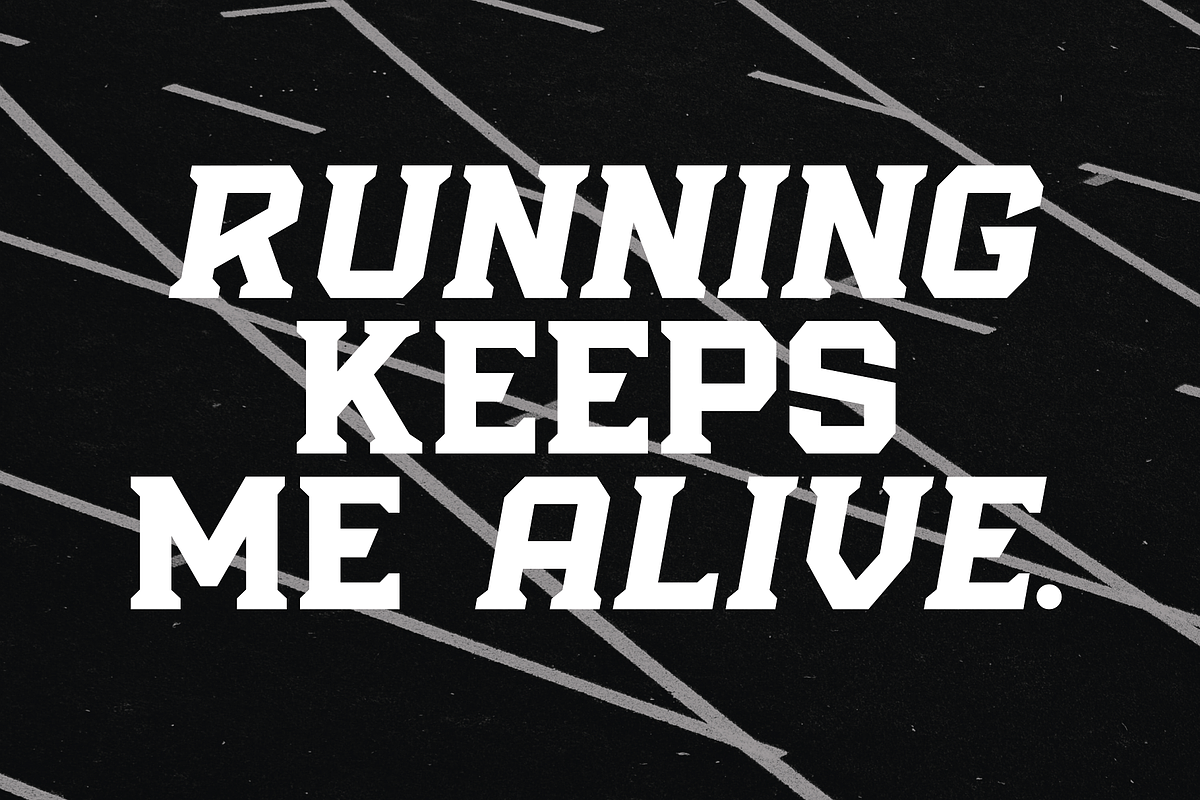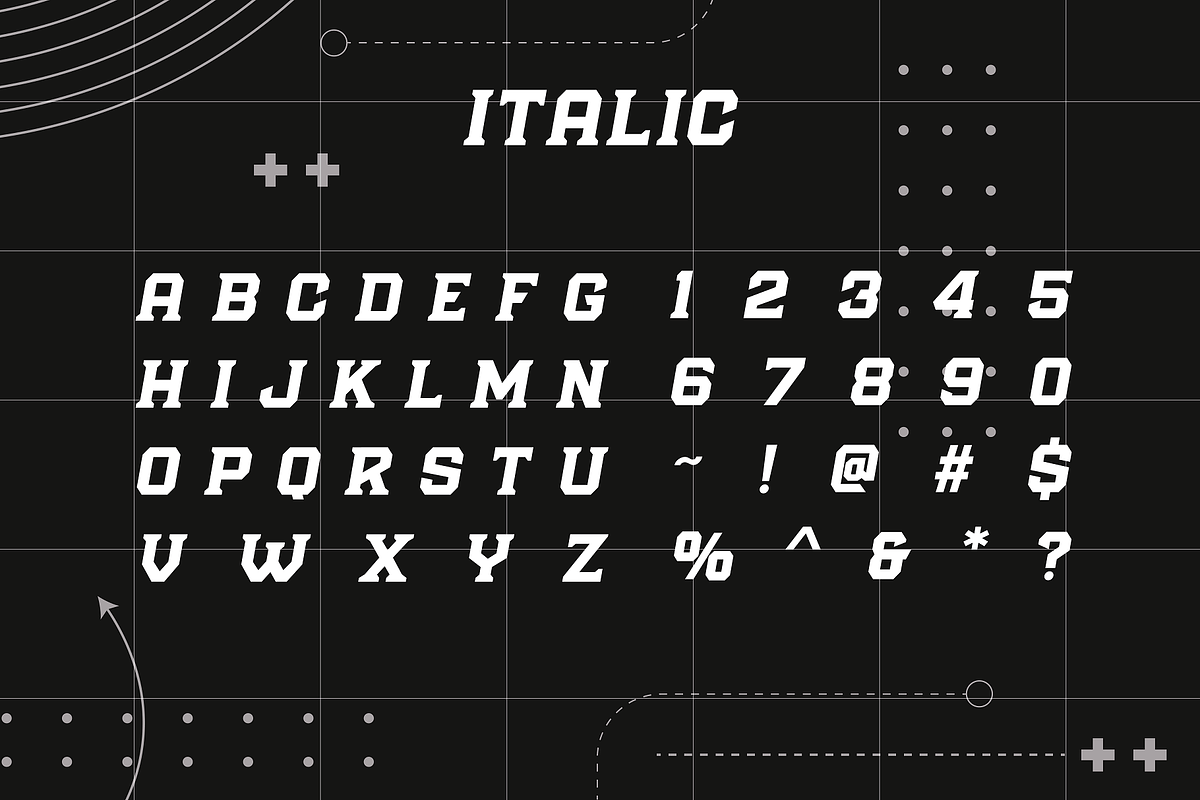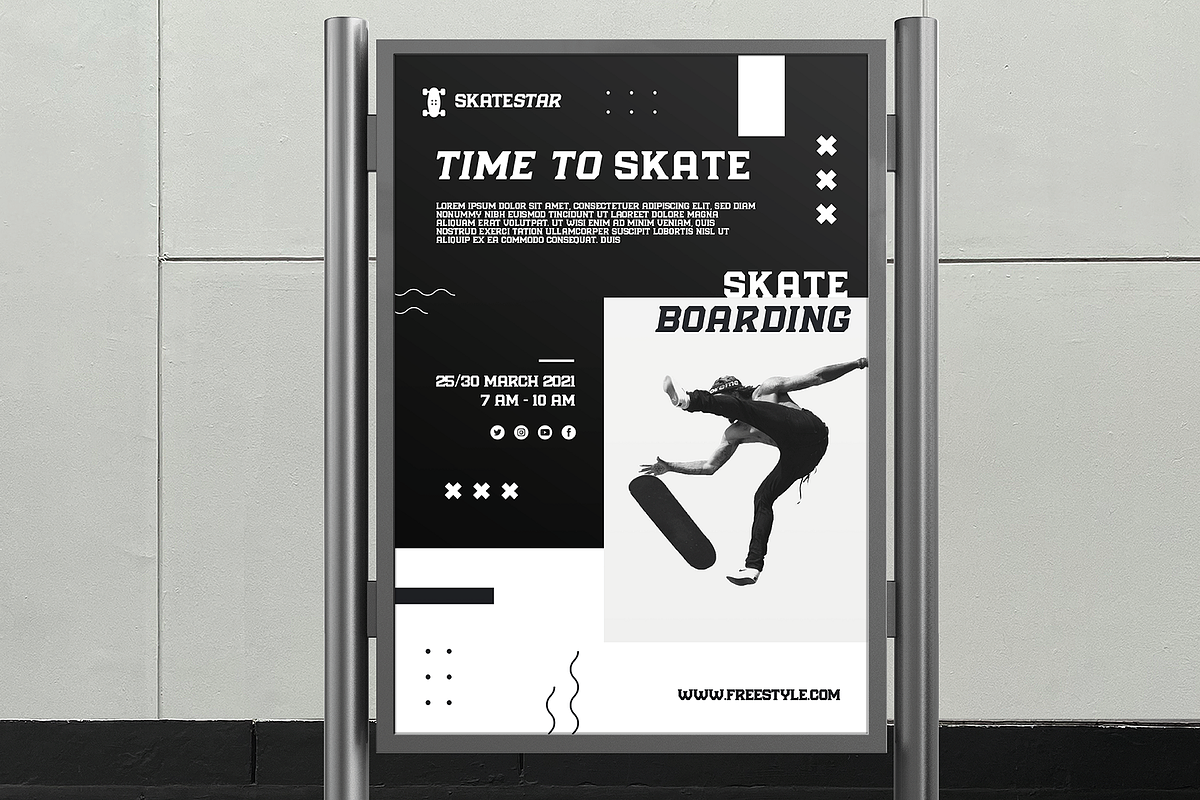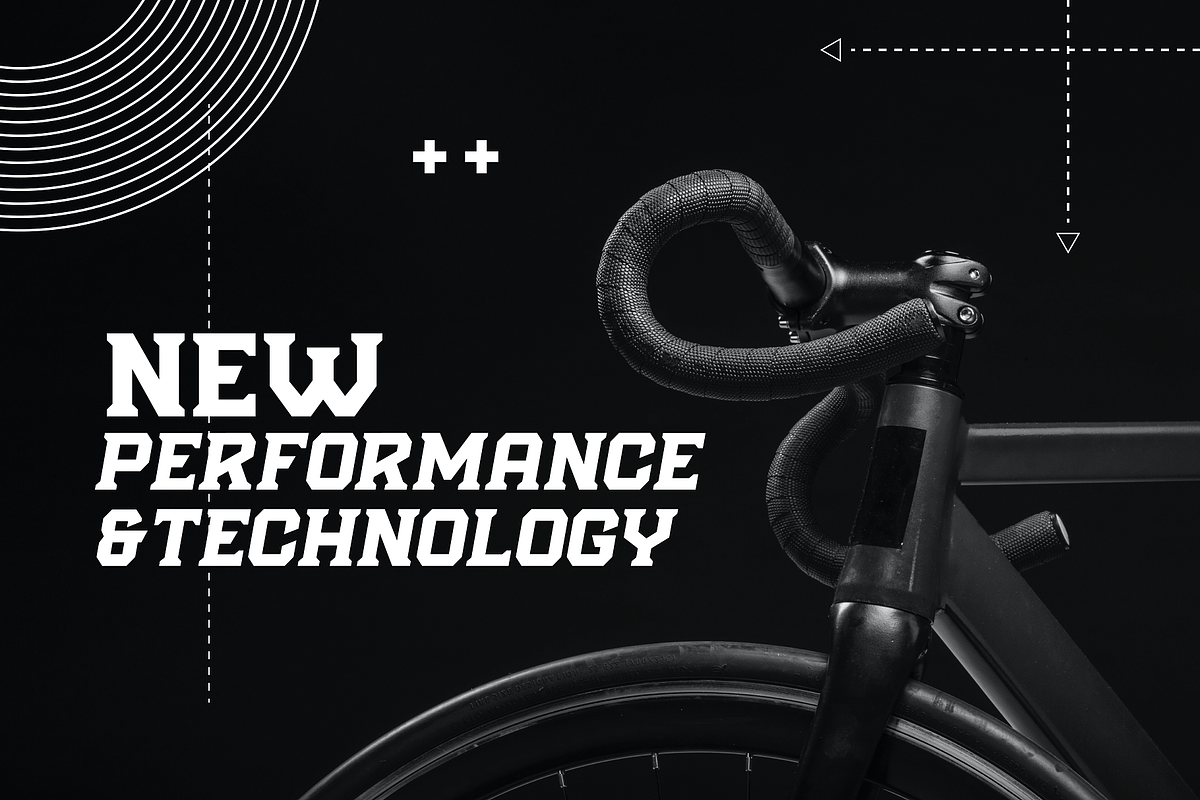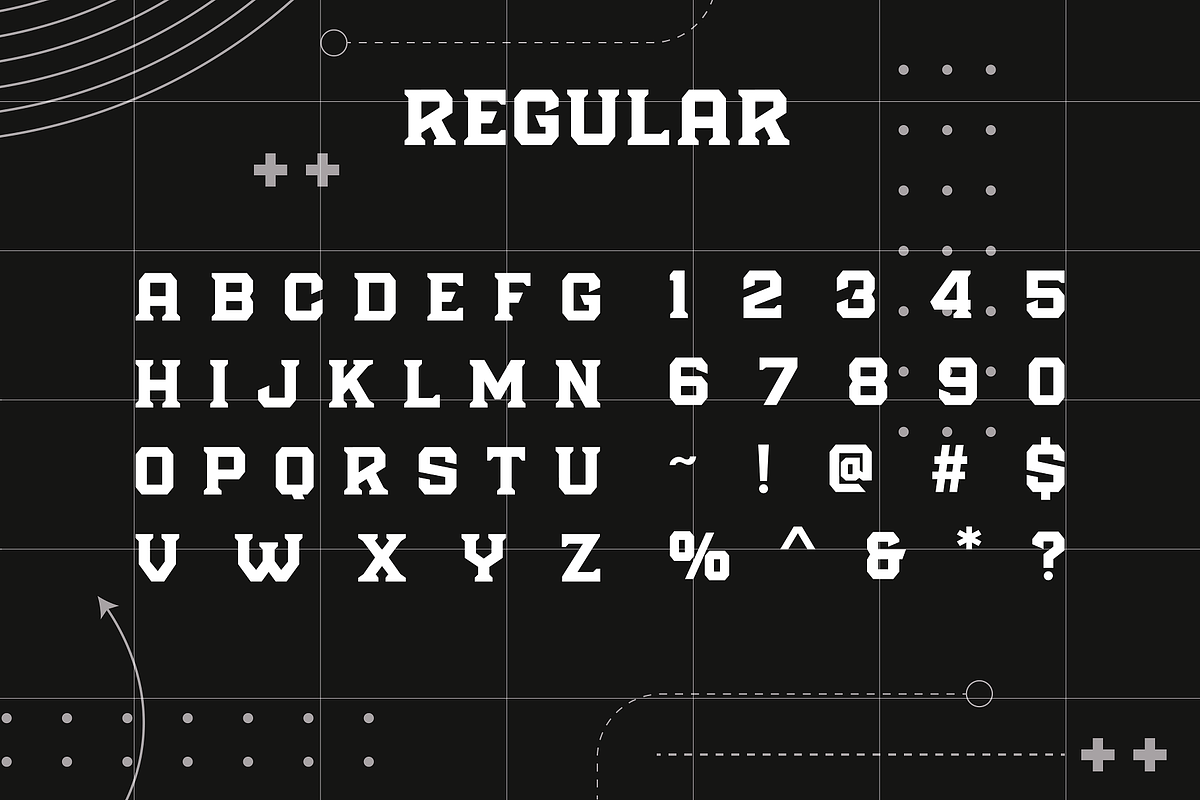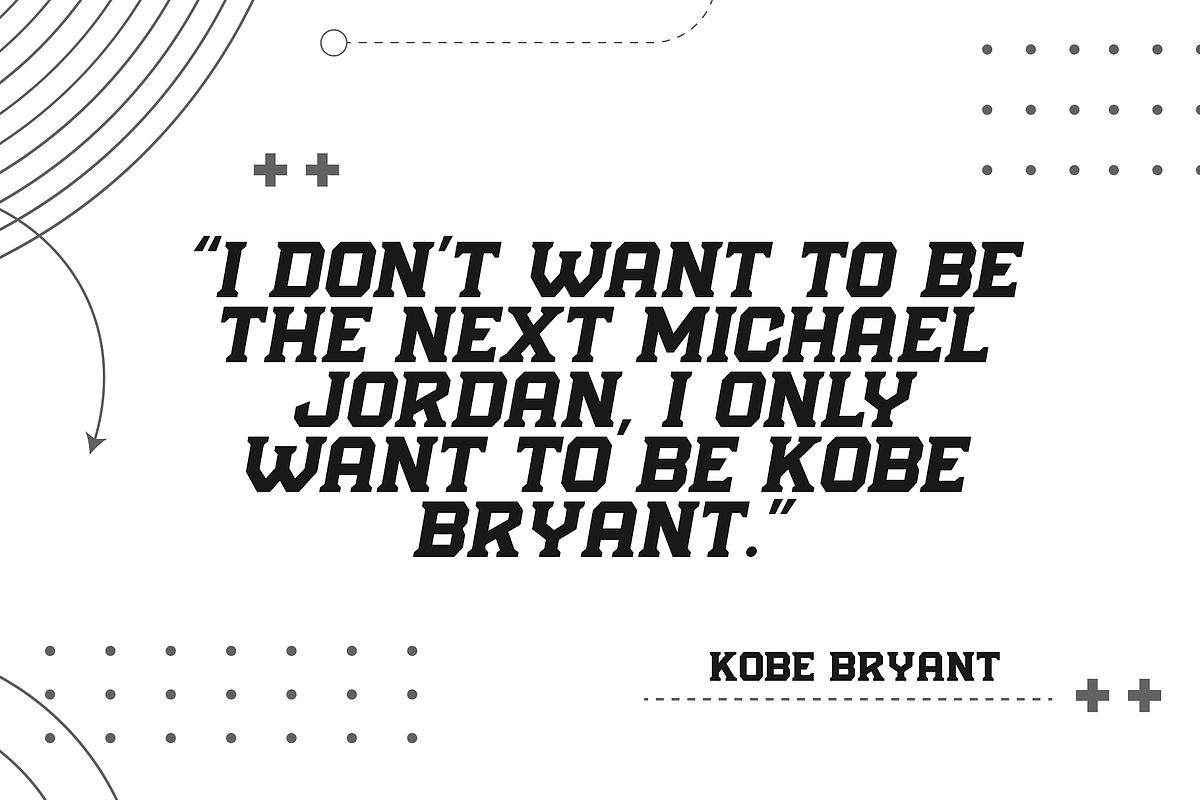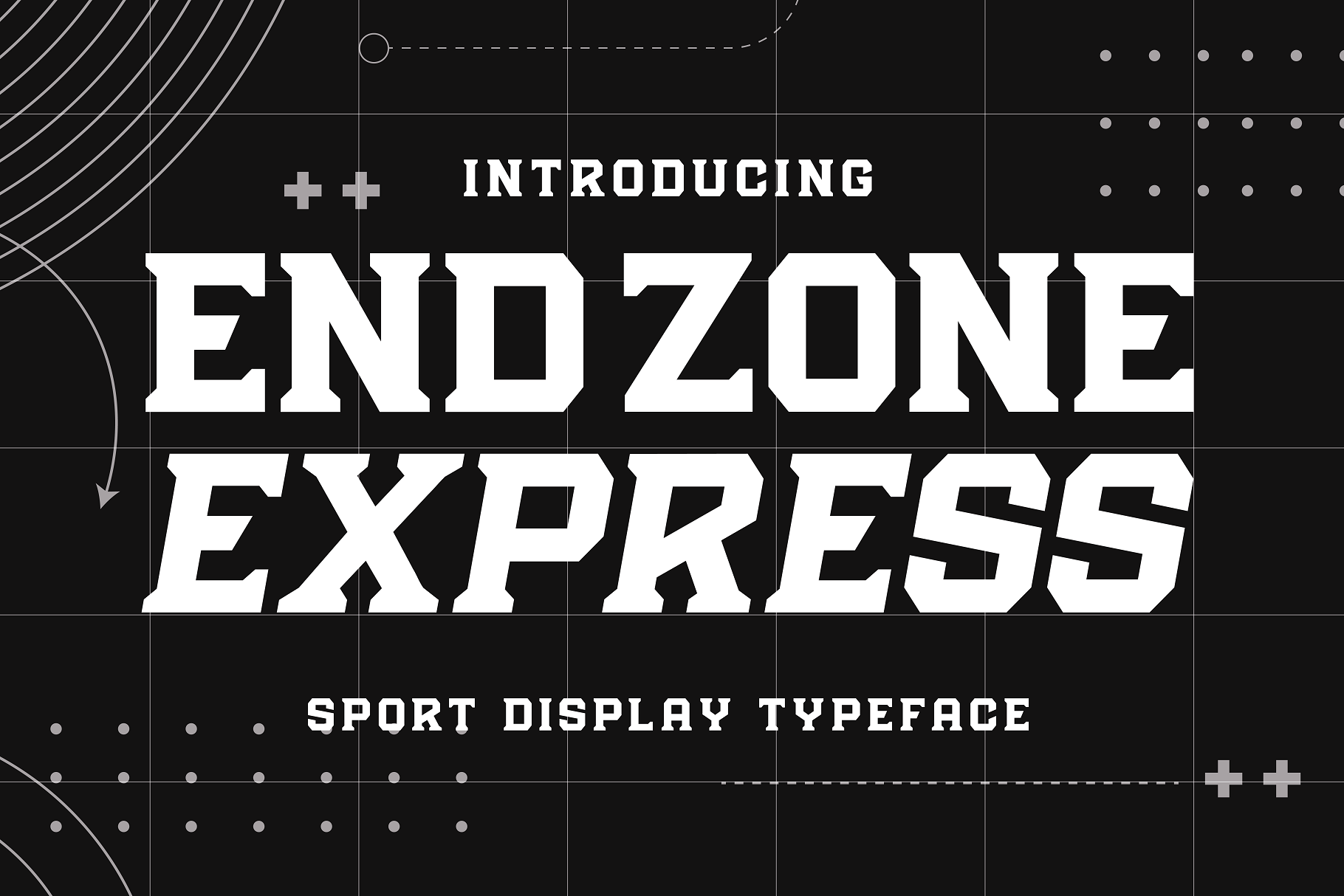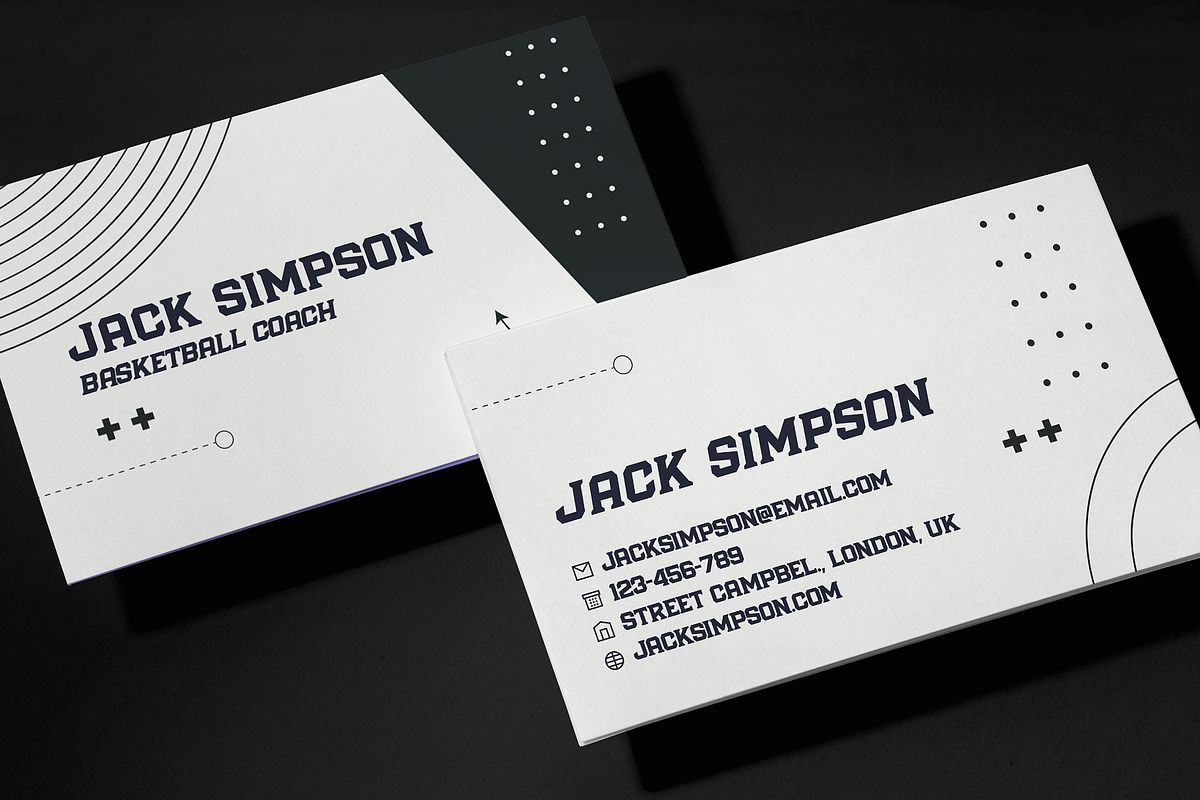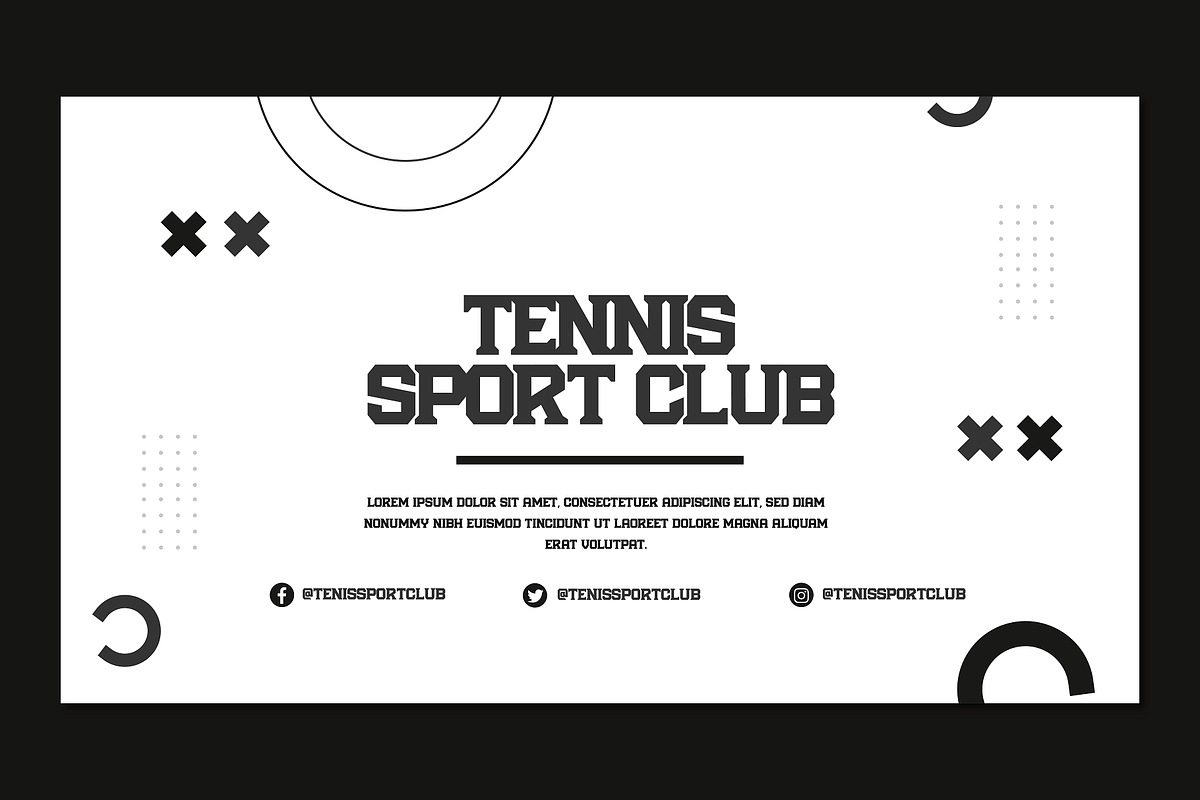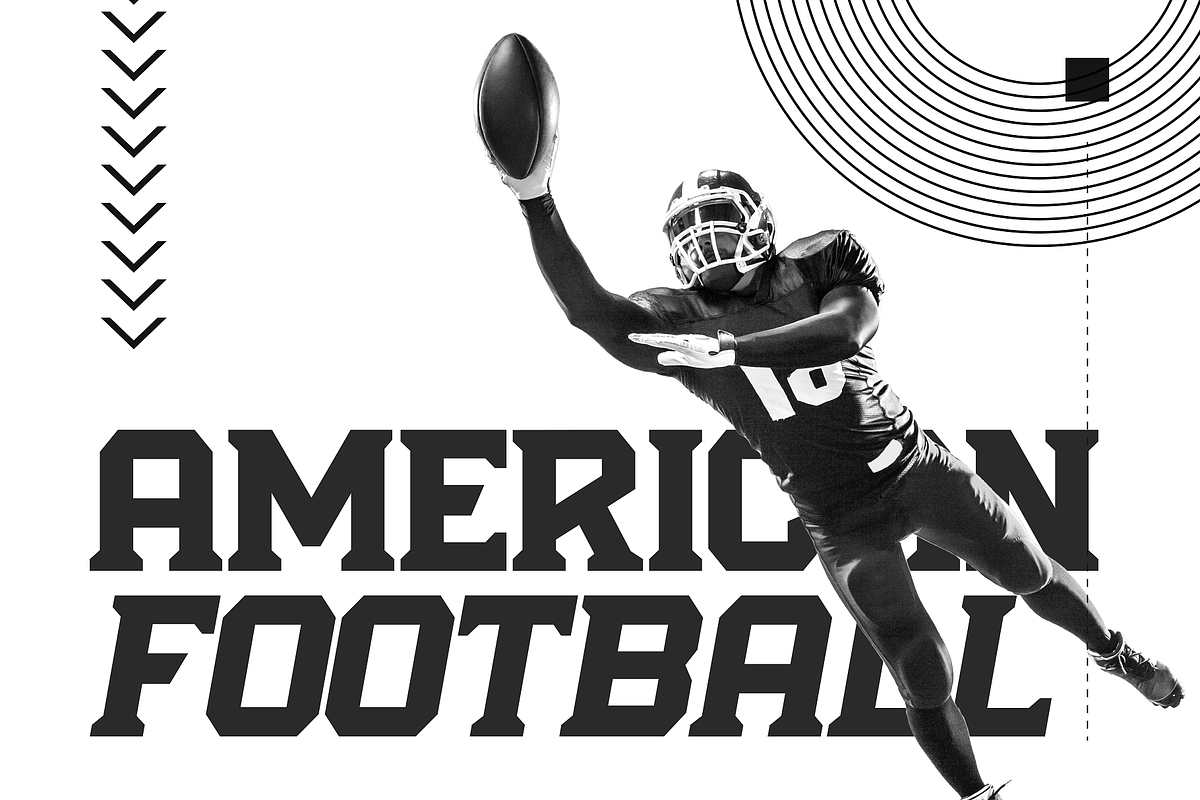
Endzone Express - Sport Typeface
Get ready to amp up your game with the ultimate font for sports enthusiasts and athletes alike! Introducing Endzone Express, the breathtakingly bold and stunning sport typeface that will leave you in awe. This font is a powerhouse of strength, exuding a thick and robust presence that commands attention.
Its flawless curves and meticulously crafted letterforms make every word you write feel like a championship victory. Whether you're designing team jerseys, creating motivational posters, or crafting sports-themed branding materials, Endzone Express delivers an unbeatable combination of style and intensity.
Don't settle for ordinary fonts when you can embrace the boldness of Endzone Express and make your designs stand out from the competition. Let your creativity soar as you score big with this extraordinary font that truly captures the spirit of winning!